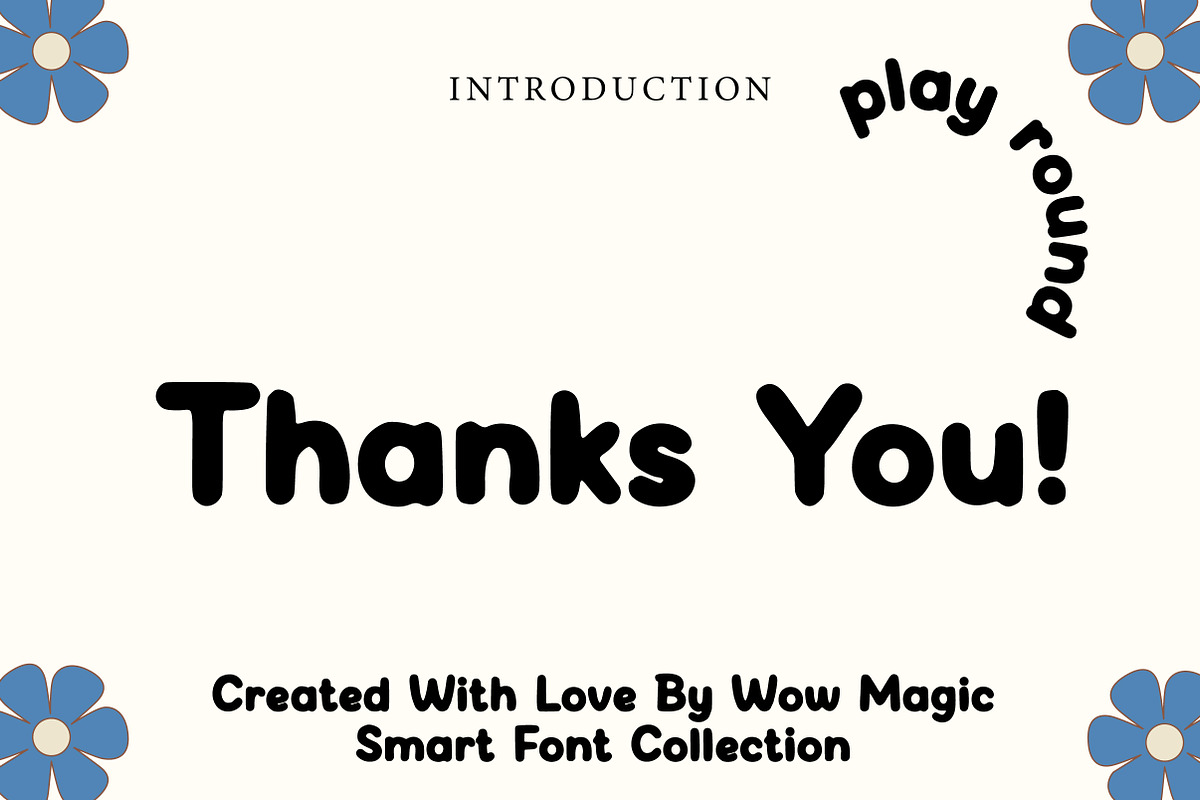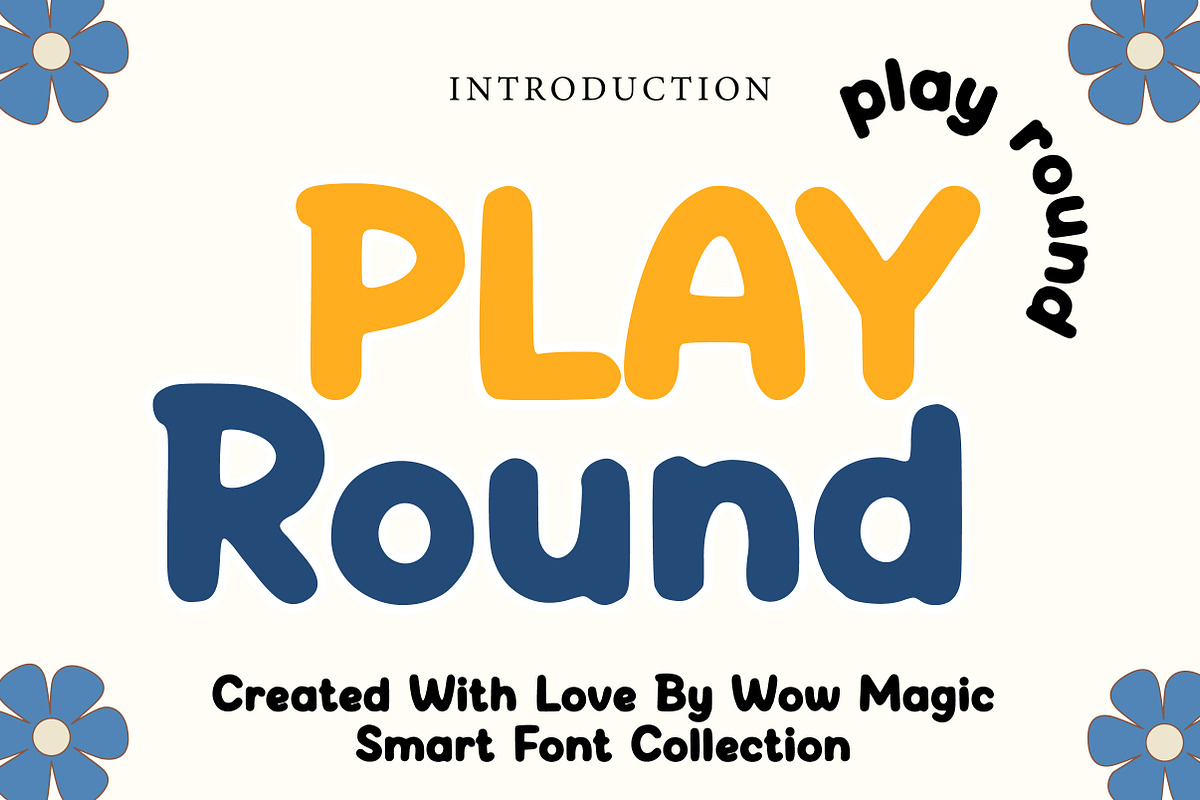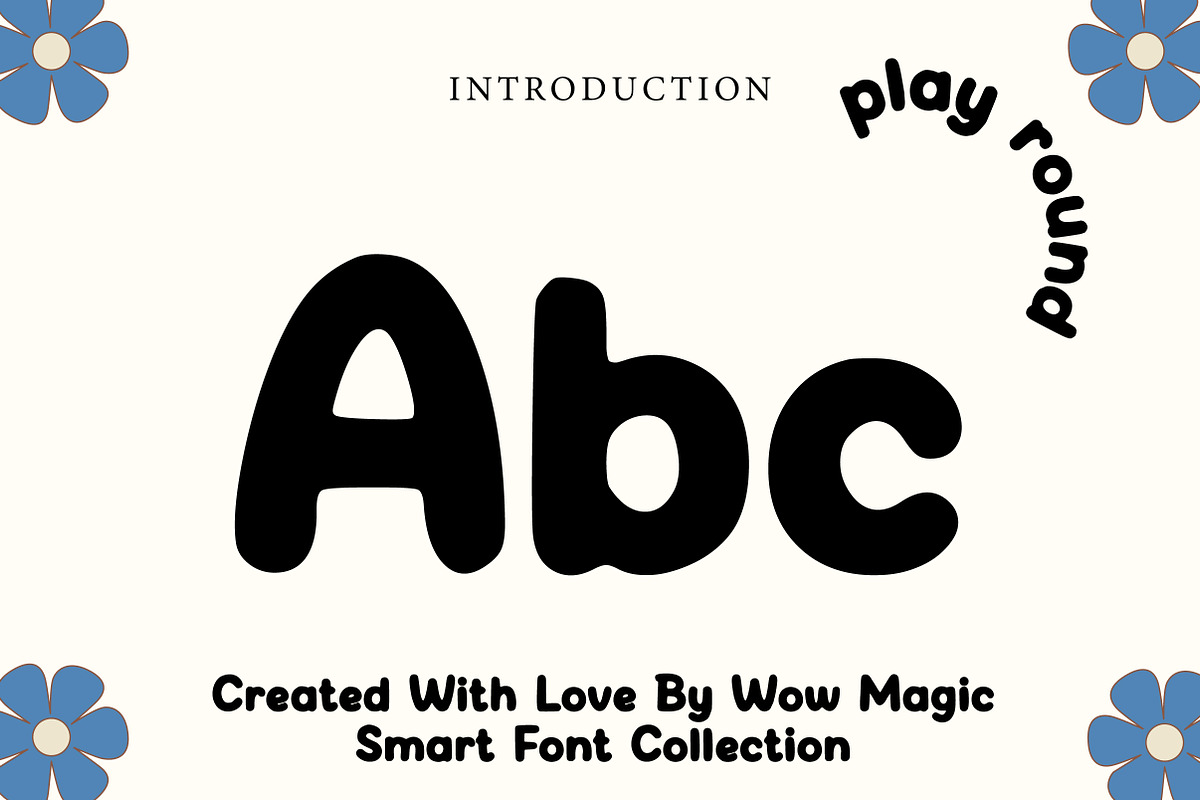
Play Round
Play Round is a fun and friendly rounded display font designed to bring a cheerful and playful personality to your designs. Featuring soft curves, thick strokes, and bubbly letterforms, this typeface creates a warm and approachable look that instantly feels joyful and energetic.
Its smooth rounded structure makes it highly readable while maintaining a cute and lively character. Play Round is perfect for kids’ projects, playful branding, cartoons, posters, packaging, educational materials, social media graphics, and creative headlines.
Whether you're designing for children’s brands or creating lighthearted visual content, Play Round adds a bright, happy, and charming touch to any typography project.
Kids Branding
Cartoon & Animation Titles
Educational Materials
Posters & Flyers
Toy Packaging
YouTube Thumbnails
Fun Logo Designs